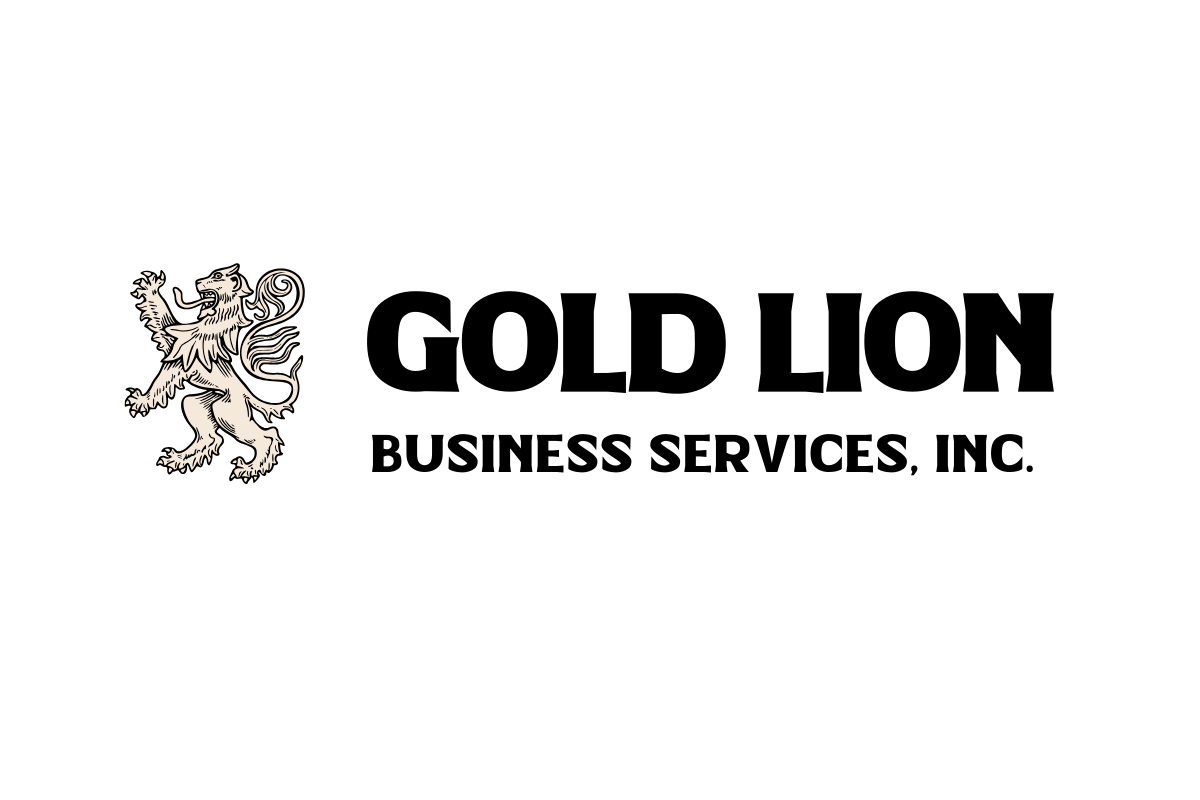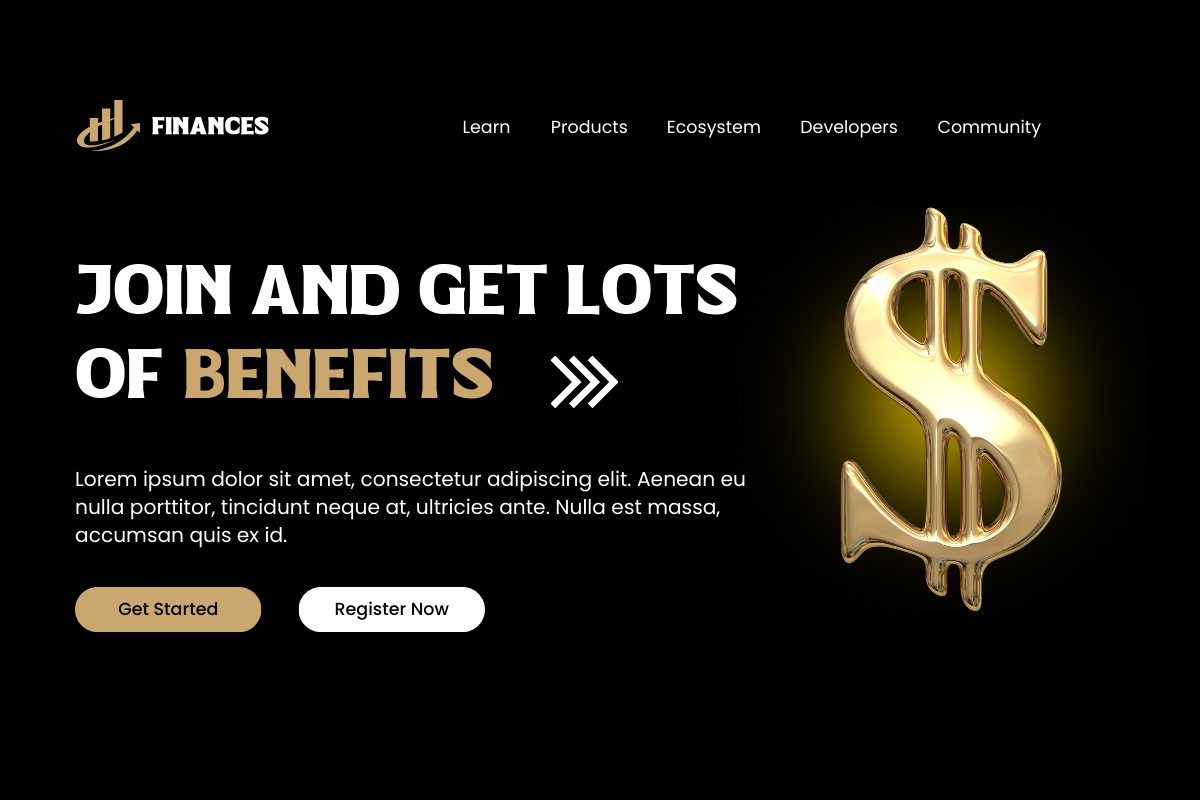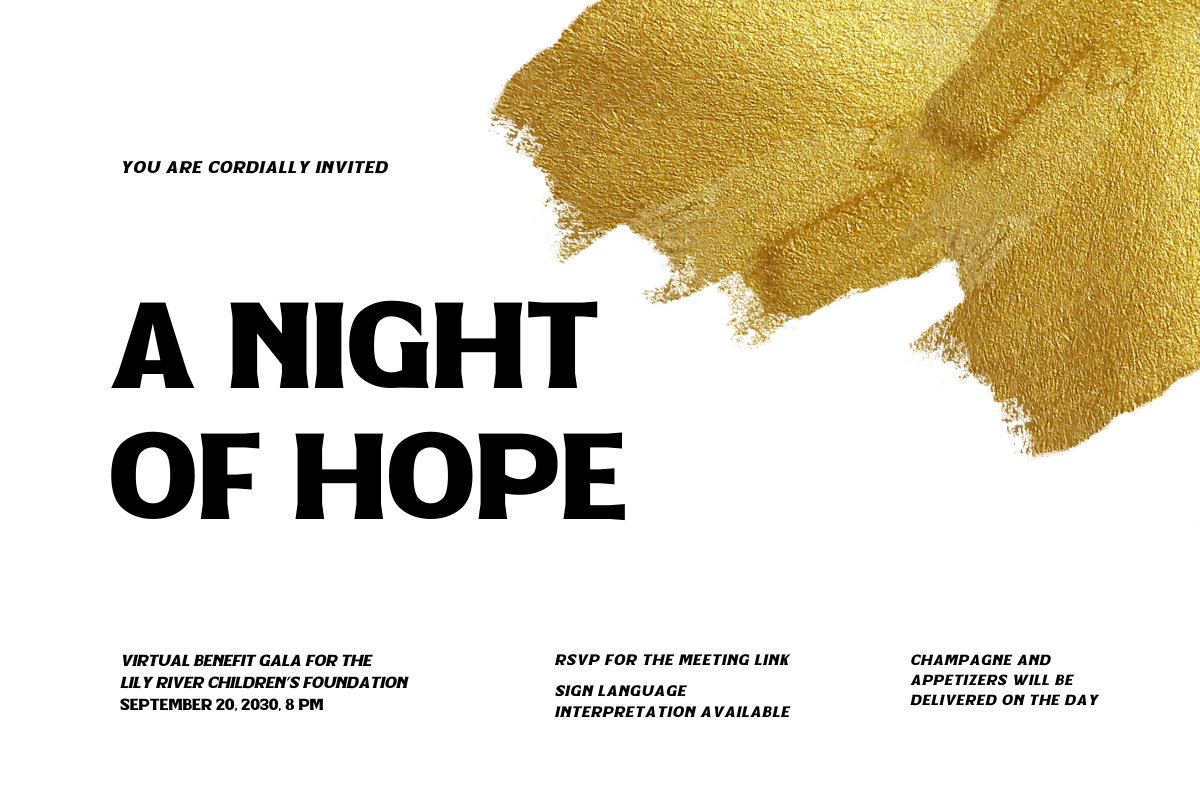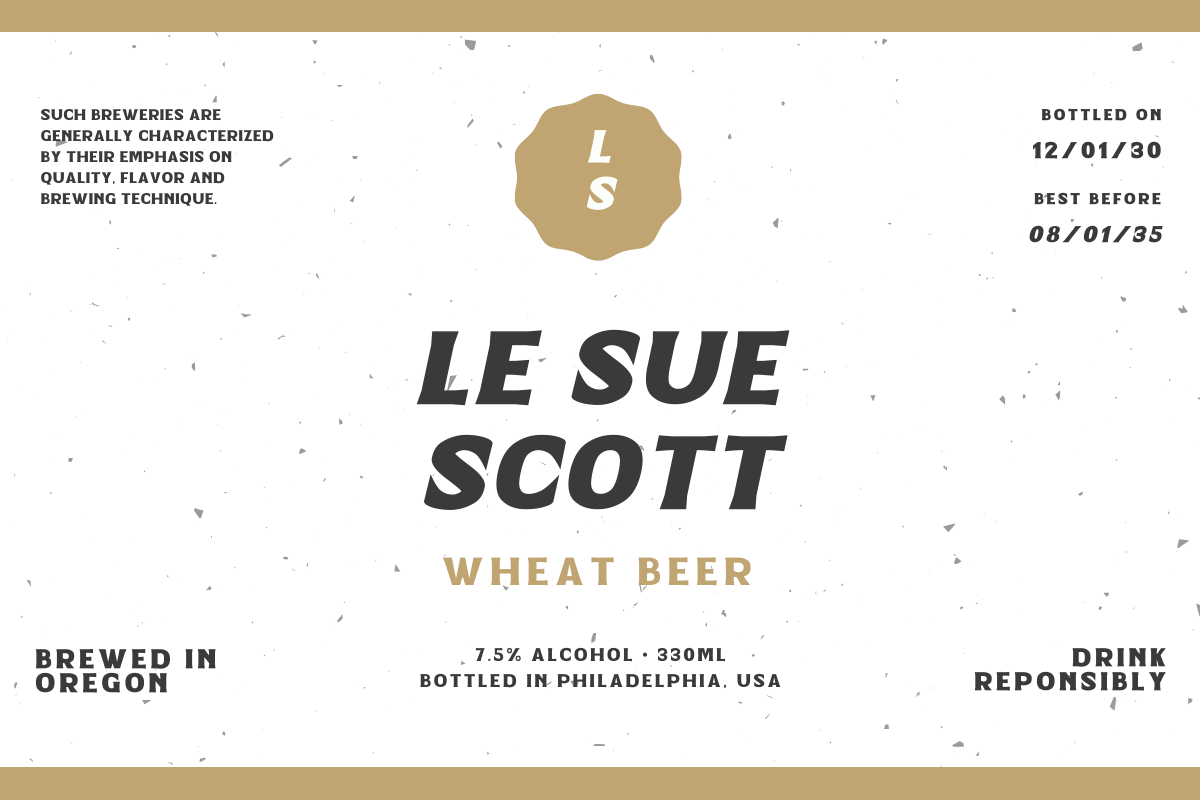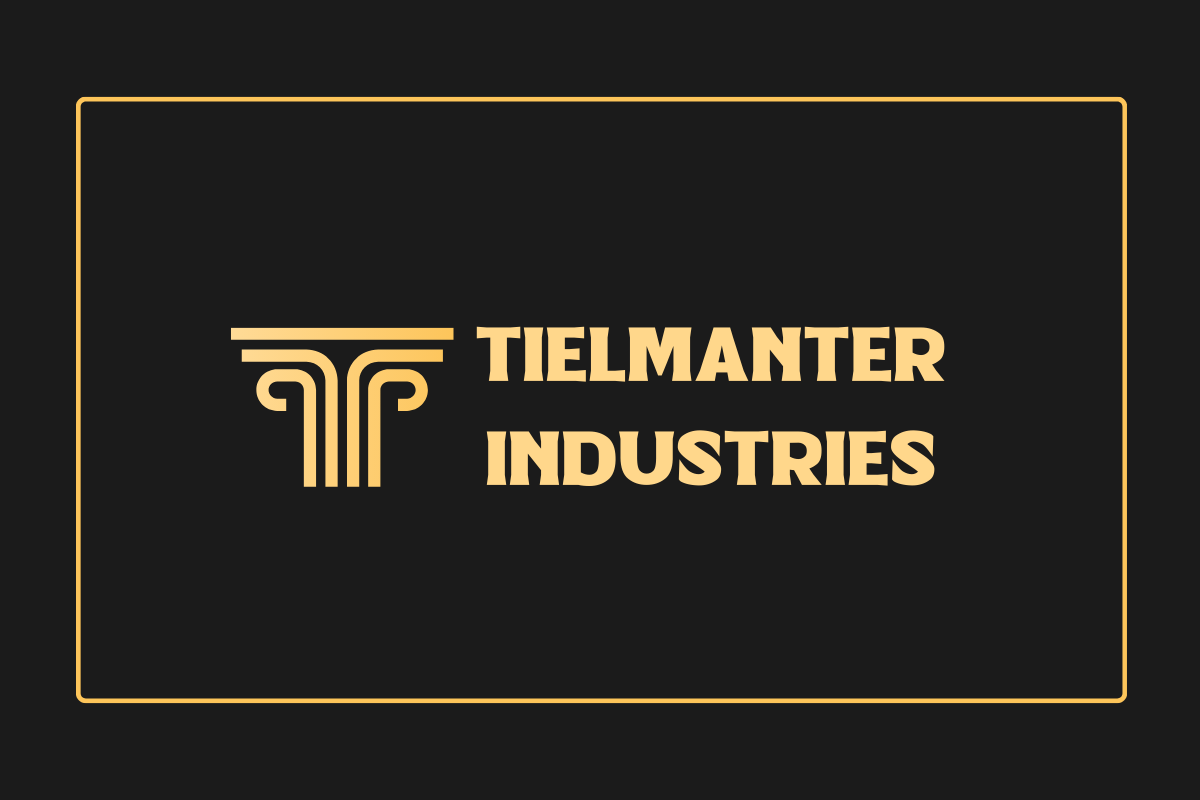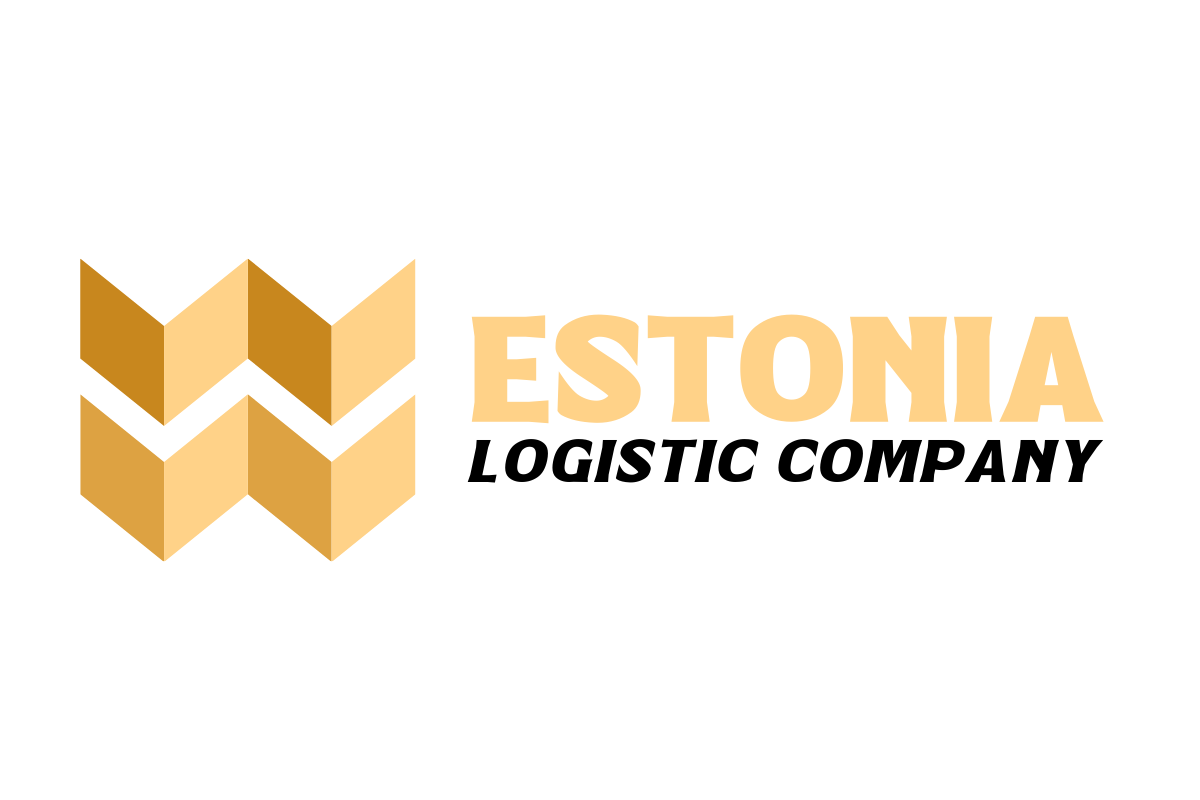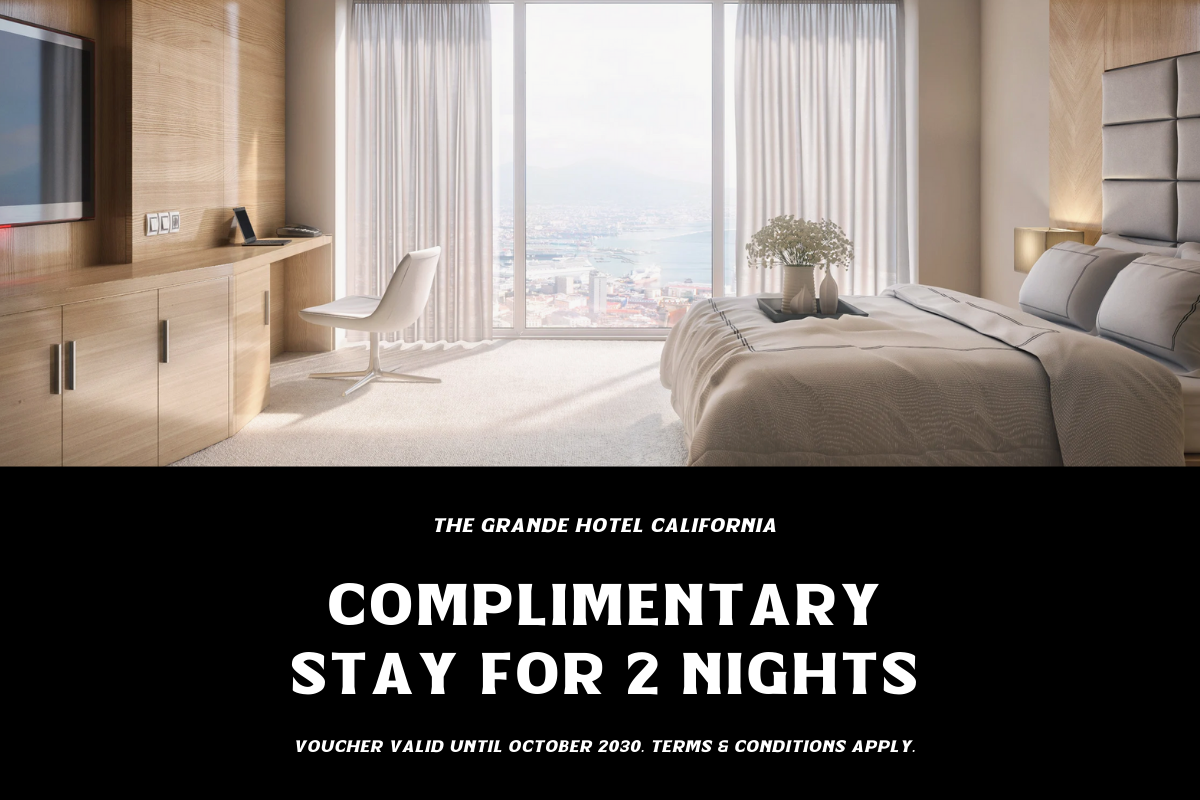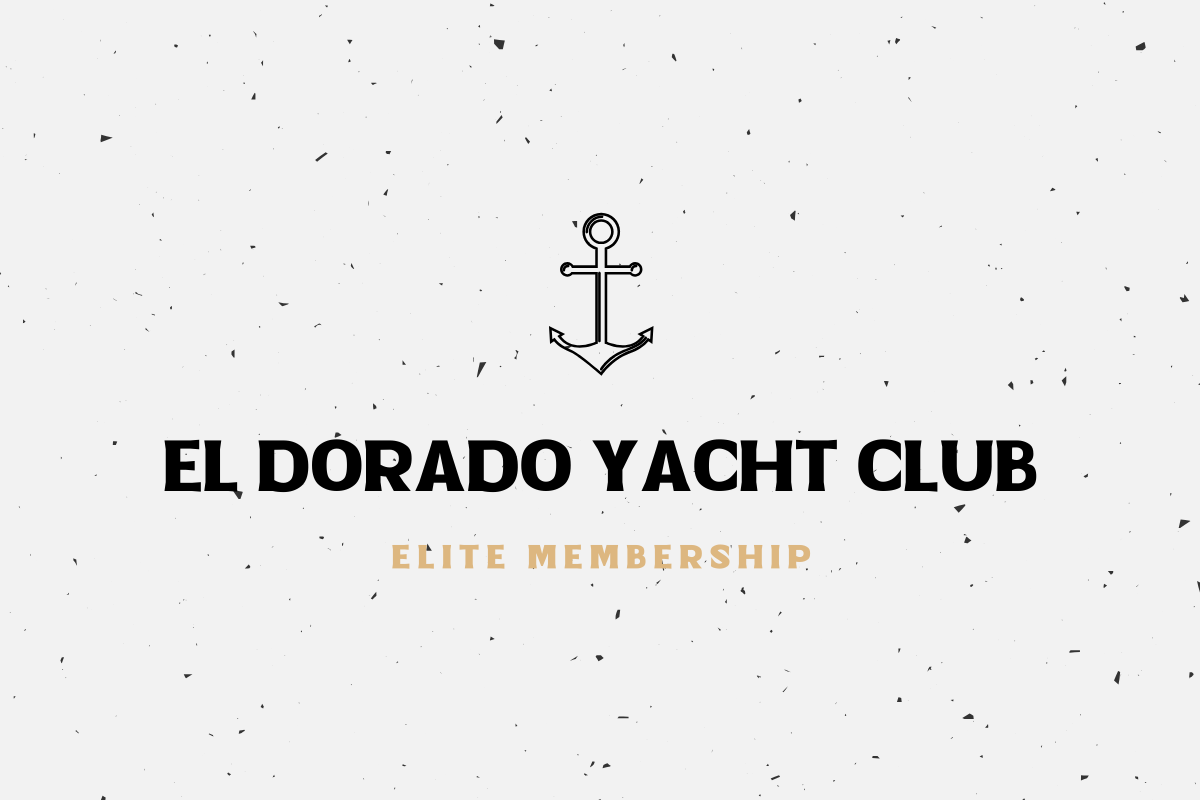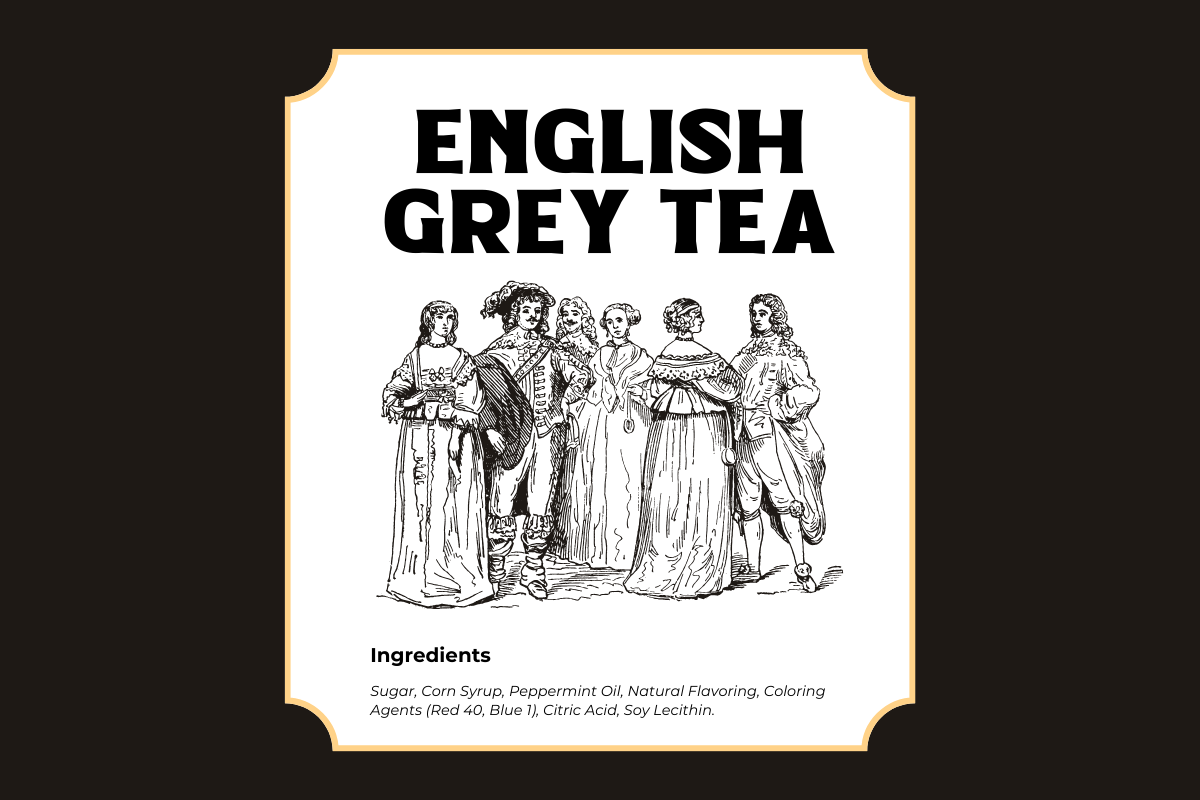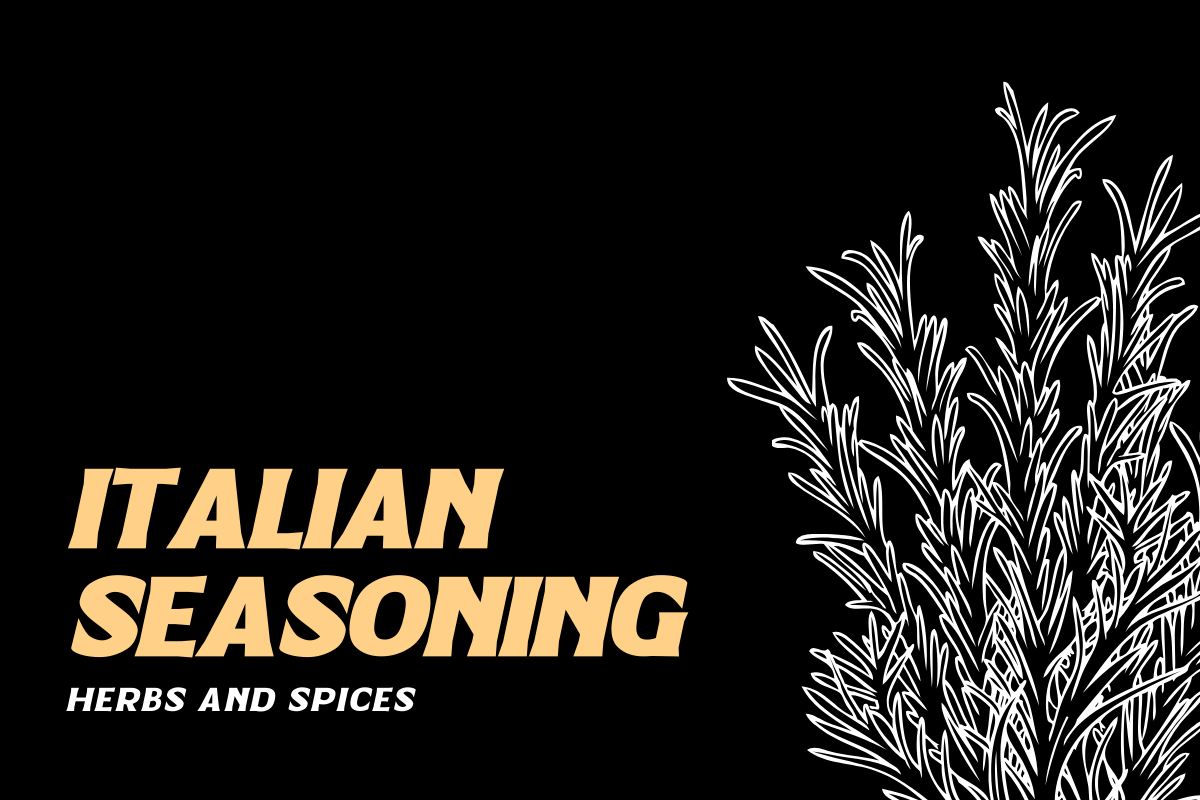
Goldener – Modern Display Serif
Introducing Goldener, a sophisticated all-caps modern display serif font perfect for your design needs.
With its elegant lines and distinctive style, Goldener adds a touch of class to any project.
This versatile font family includes four stunning variations: Regular, Italic, Bold, and Bold Italic, allowing you to create eye-catching headlines, logos, and branding materials with ease.
Elevate your designs with Goldener’s timeless elegance and modern flair.